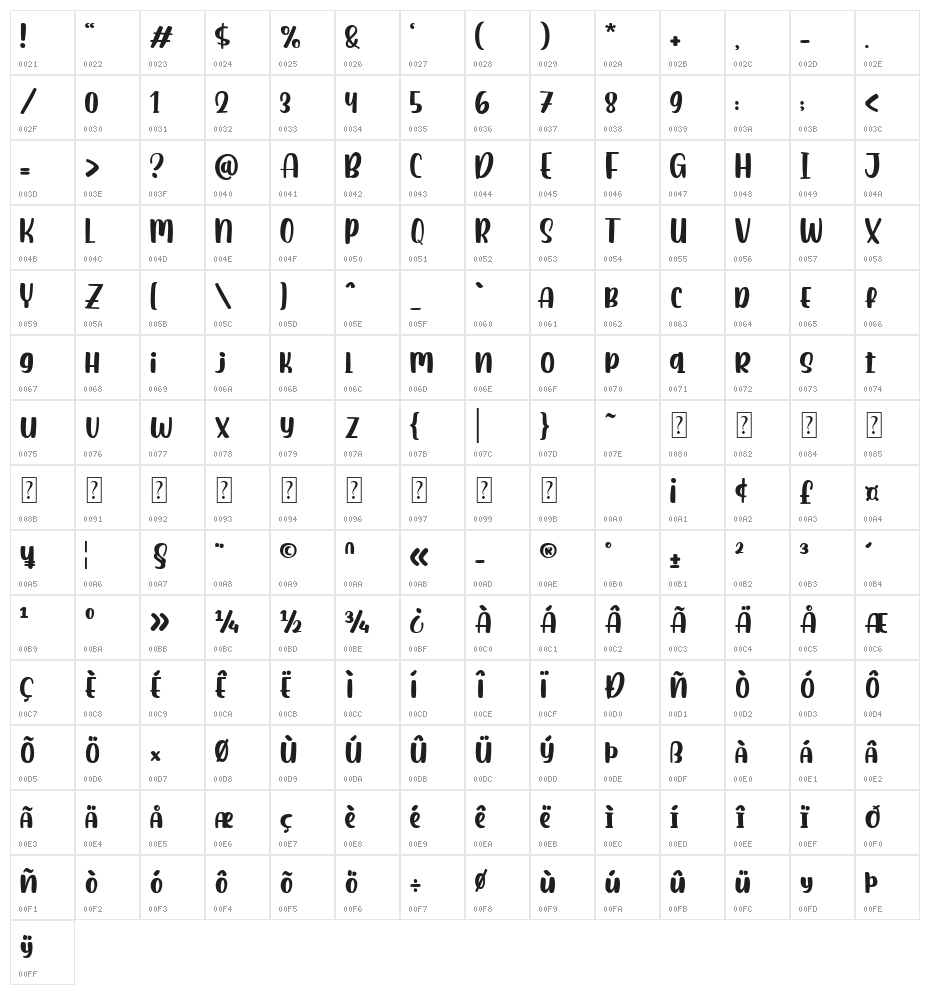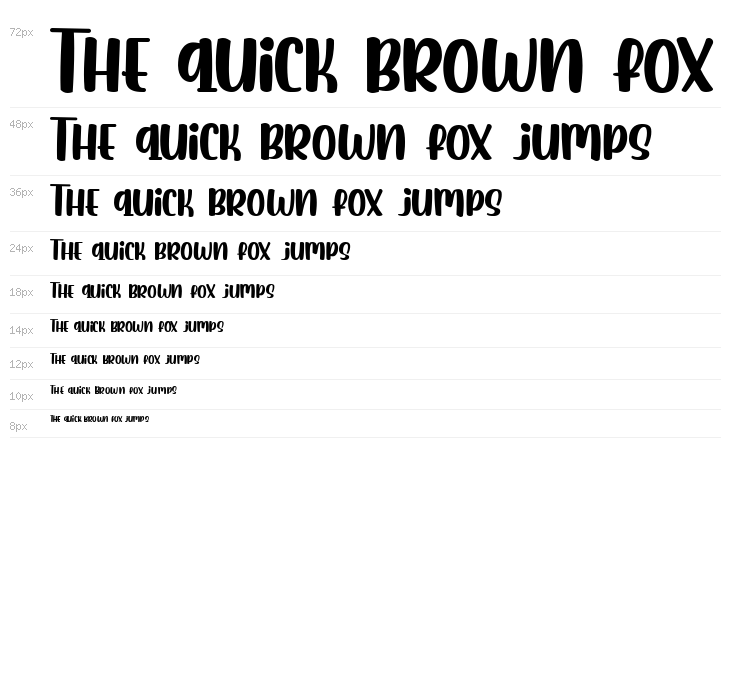
Baimbo Font
Baimbo Description
This font features a playful and bold style with rounded edges and a hand-drawn feel. The uppercase and lowercase letters maintain a consistent thickness, giving it a cohesive look. The characters are slightly condensed, adding to its unique charm. The numbers and special characters follow the same design principles, ensuring uniformity across all glyphs. This font's whimsical nature makes it ideal for creative projects that require a touch of fun and personality.
| Categories | Cartoon |
| Width | Condensed |
| Use Case | Logos, Headlines, Posters |
| Proposed Projects | Ideal for children's books, playful branding, greeting cards, and creative posters. |